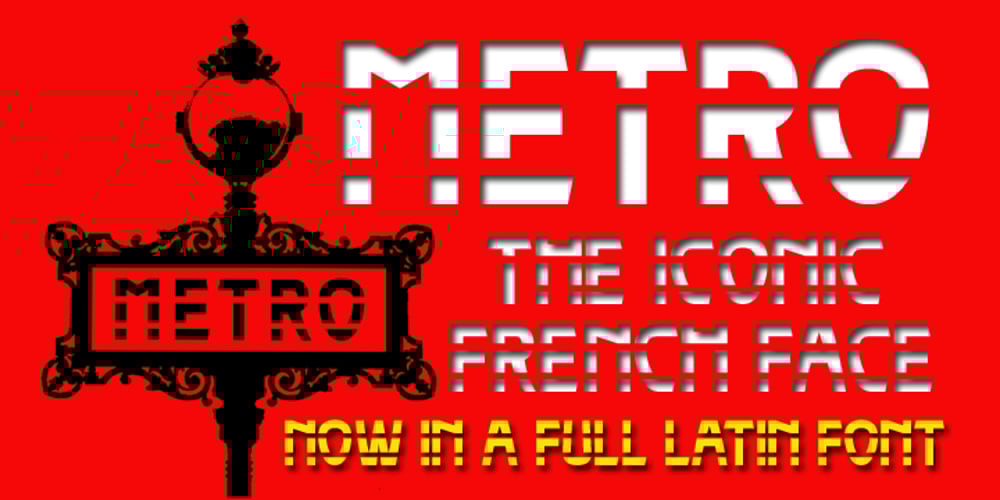
Paris Metro Font Family was designed by Keith Tricker and published by Studio K. Paris Metro contains 4 styles and family package options. Nothing is more iconic of Paris than its antique Metro signs, which are the inspiration for this typeface. The signs vary from station to station, some featuring plain block capitals, others the most exquisite Art Nouveau. This example falls somewhere in between. and should inject a strong gallic flavour into any design or publishing project. To recreate the Metro effect in Photoshop, set your text white on red, then go to Layer Style> Inner Shadow. Or with Paris Metro Reverse set your text red on white, then go to Layer Style> Drop Shadow.